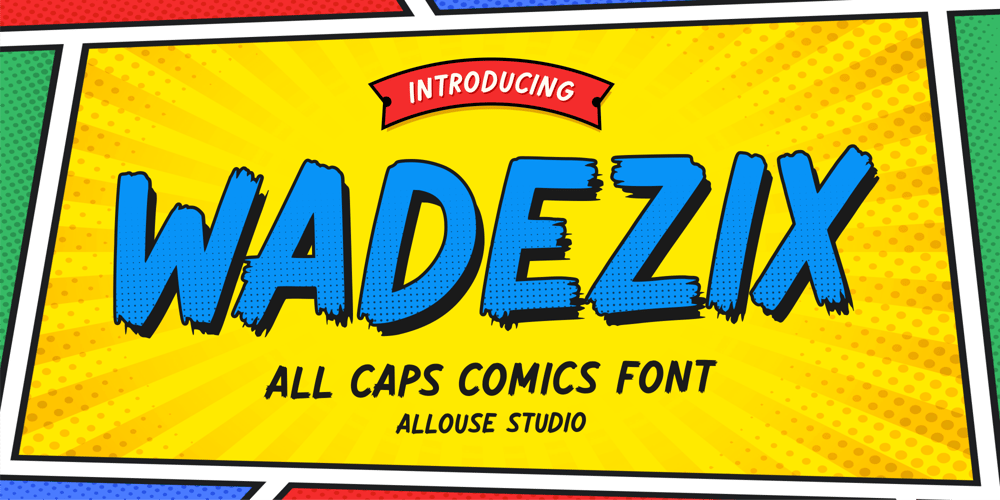
Wadezix
Wadezix font
Wadezix Font Family was designed by Fachrizal Yusuf and published by Allouse Studio. Wadezix contains 1 styles and family package options. Proudly Presenting, Wadezix A All Caps Comics Font.Wadezix is perfect for any titles, logo, product packaging, branding project, megazine, social media, wedding, or just used to express words above the background.Wadezix also come with Multi-Lingual Support.Enjoy the font, feel free to comment or feedback, send me PM or email. Thank You!